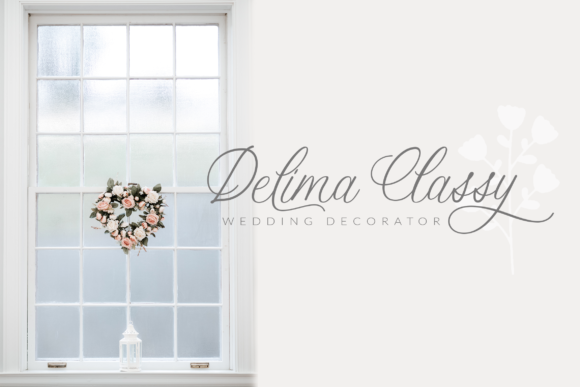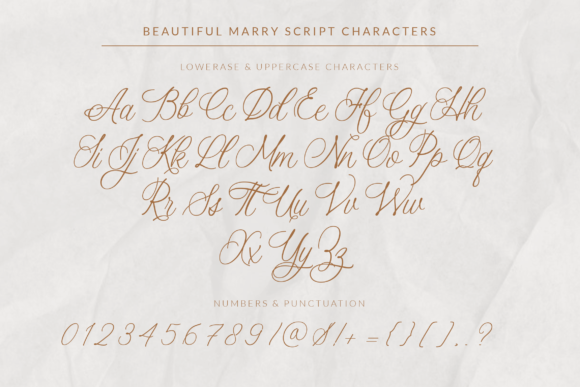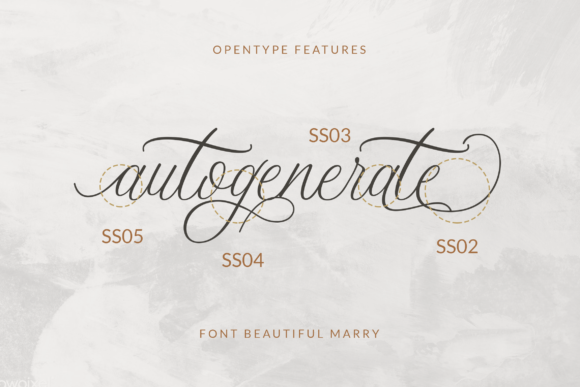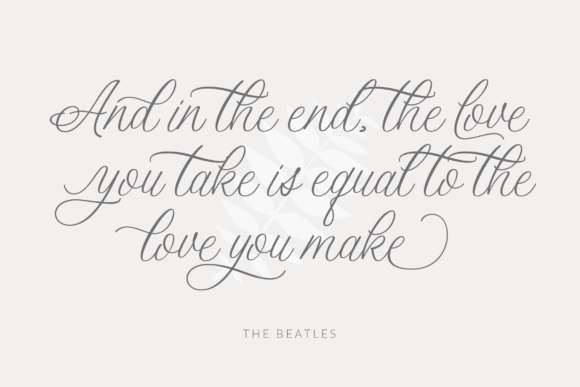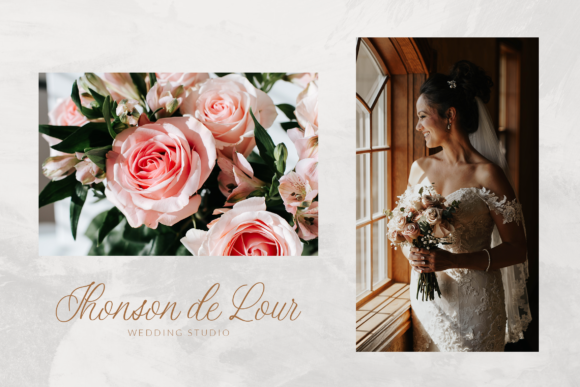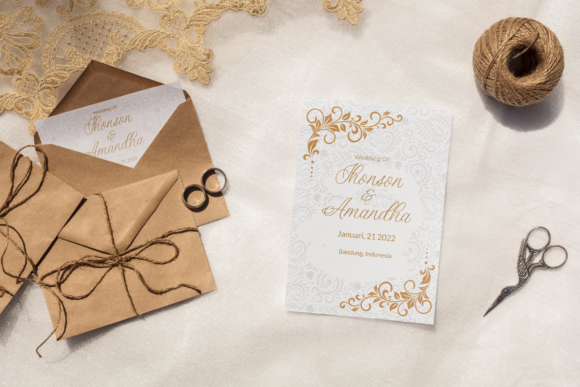
The Perfect Font for Your Dream Wedding Invitation
Have you ever found yourself staring at a blank page, pen in hand, trying to put your feelings into words? That’s exactly what happened to me when I was planning my own wedding. I wanted to create an invitation that captured the essence of our love story, something that would make our guests feel like they were part of our special day. That’s when I discovered the Beautiful Marry Font – a romantic and sweet calligraphy typeface that would make any design project shine.
The Beautiful Marry Font is more than just a pretty face; it’s a powerful tool for designers who want to add a touch of luxury and elegance to their work. With its PUA encoded characters, you can easily access all the amazing glyphs and ligatures that make this font so special. Whether you’re creating a wedding invitation, a wedding card, or just a romantic message, the Beautiful Marry Font is the perfect choice to make your design project truly unforgettable.
Beautiful Marry Font Key Features
- Font Family: Beautiful Marry Font
- Unique Characteristic: Beautiful Marry Font features a unique, hand-drawn design with elegant and refined lines, making it perfect for wedding invitations, wedding stationery, and other special occasions.
Designer Review: Beautiful Marry Font
First off, I have to say that the Beautiful Marry Font has some amazing qualities that make it a great addition to any design project. ✨ The elegant, cursive script is perfect for creating a sense of romance and sophistication, making it ideal for wedding invitations, greeting cards, and other special occasion designs.
Some of the things that I love about this font include:
- Its versatility – it can be used in both digital and print designs
- Its high level of customizability, allowing users to adjust the size, color, and spacing to suit their needs
- Its beautiful, flowing lines that add a touch of whimsy and elegance to any design
However, there are a few limitations that I’d like to mention. ⚠️ While the font is beautiful, it can be a bit tricky to read at smaller font sizes, which may be a concern for designers working on text-heavy projects. Additionally, the font’s customization options can be overwhelming for beginners, which may lead to frustration if not used carefully.
Overall, I’d give the Beautiful Marry Font 4 out of 5 stars. While it’s not perfect, its unique charm and customizability make it a great choice for designers looking to add a touch of elegance and romance to their projects.
Beautiful Marry Font: A Practical Application Guide
Tip: Use Beautiful Marry Font to create visually appealing headings and titles in your designs.
Tip: Use Beautiful Marry Font to create custom typography for your graphics and illustrations.
Tip: Use Beautiful Marry Font to create visually appealing headings and titles in your presentations and documents.
Beautiful Marry Font is ideal for:
- Typography-based graphics and illustrations
- Formal and elegant presentations
Remember to experiment with different font sizes, colors, and styles to get the most out of Beautiful Marry Font.